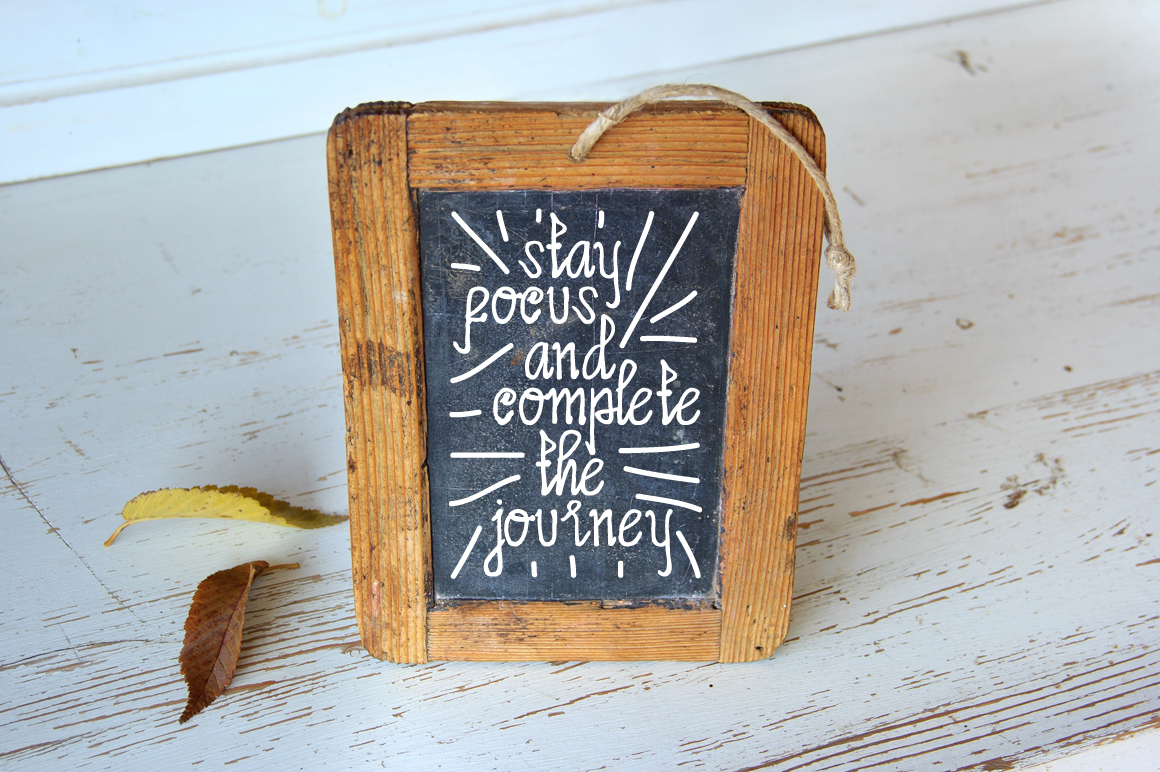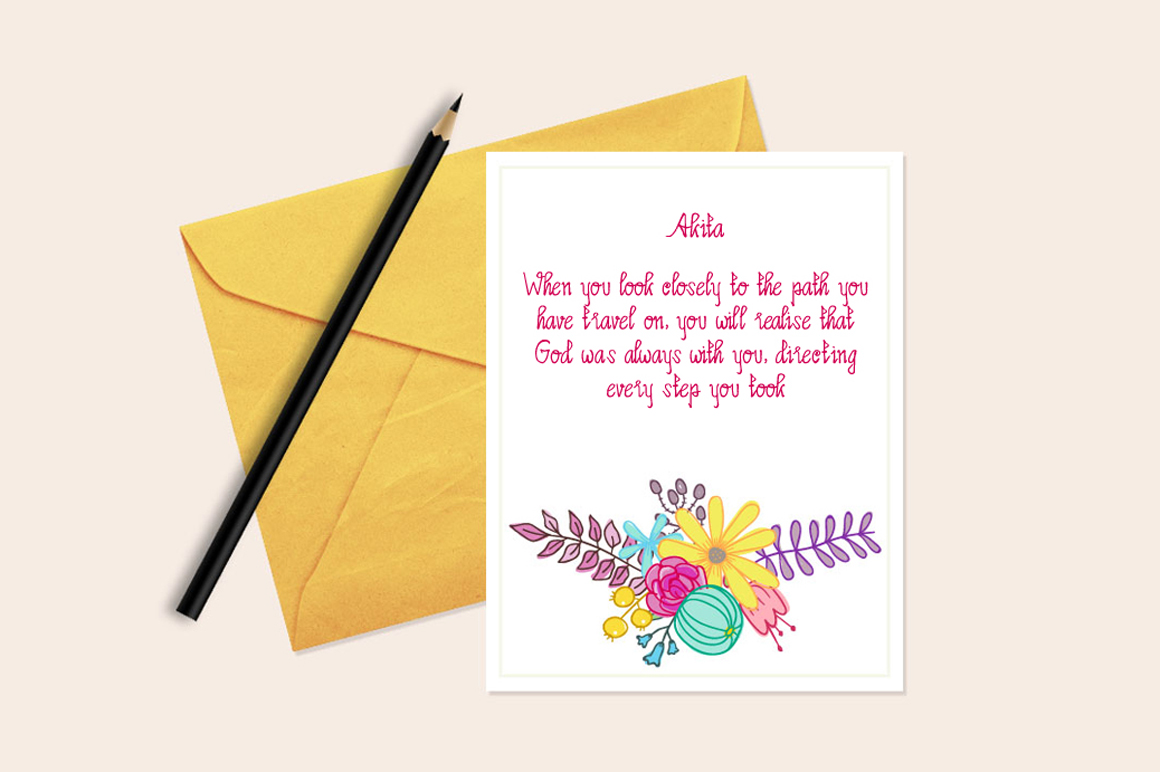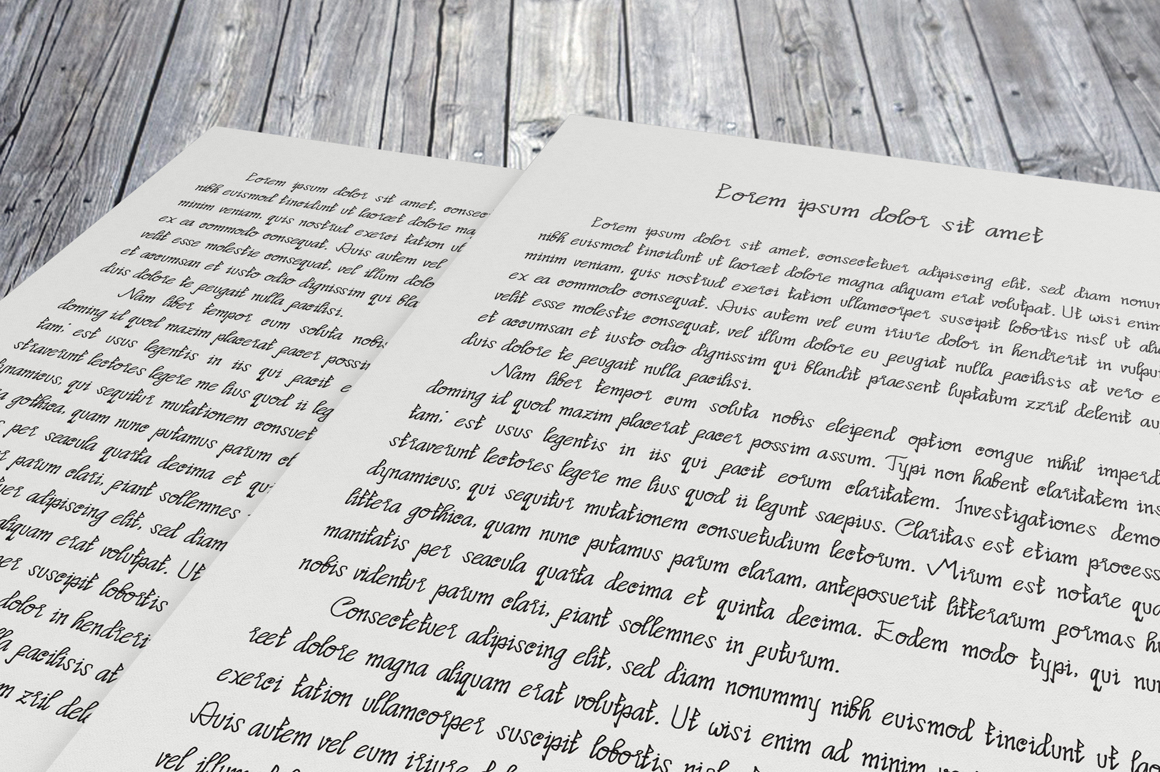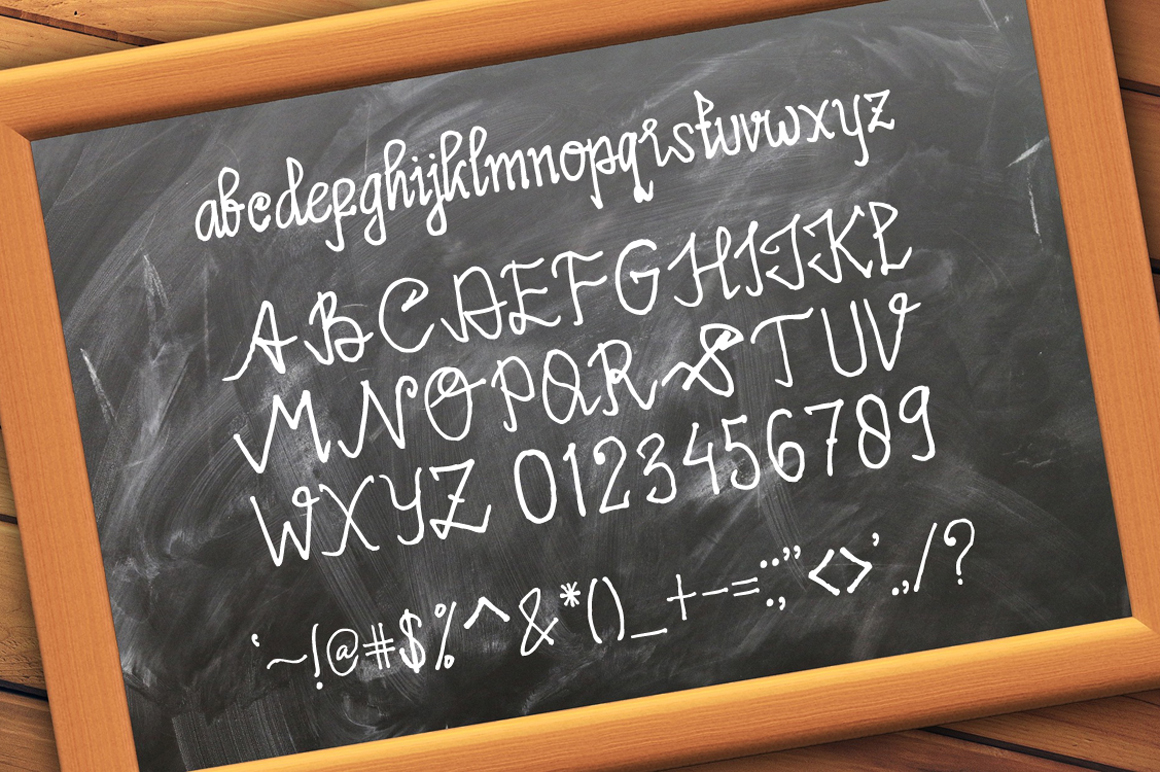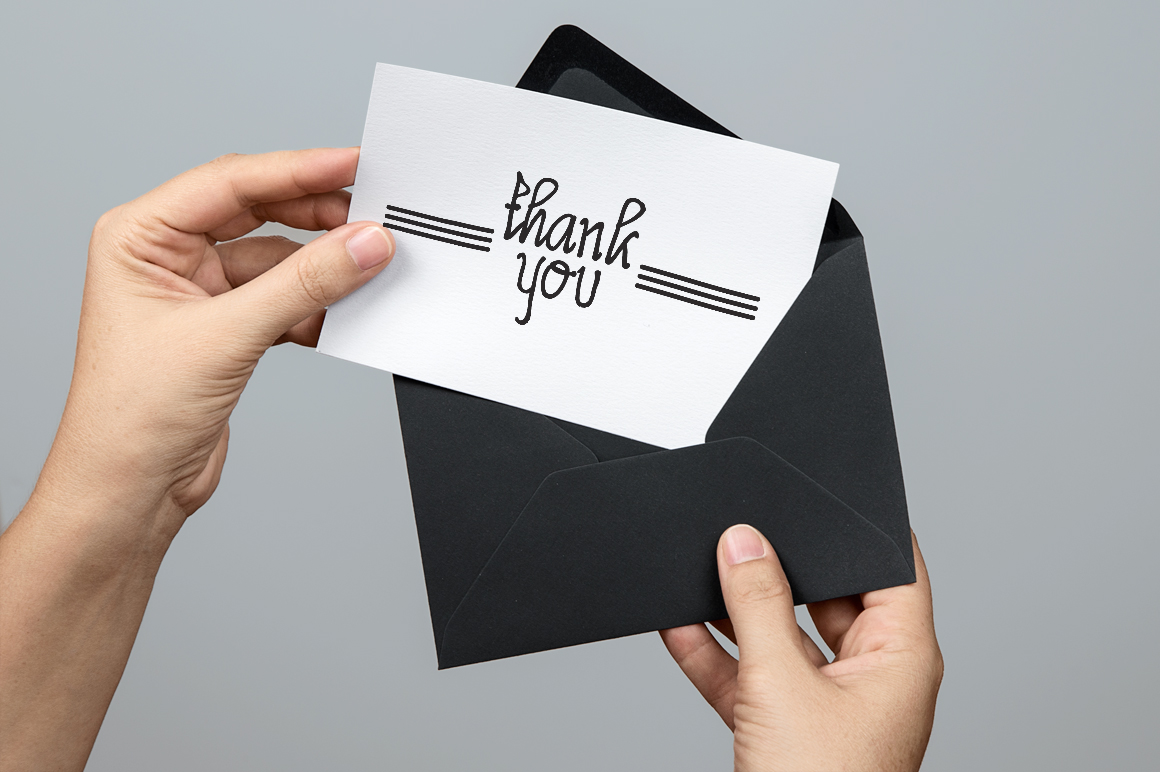
Introduction to Limpoke Font
Do you remember the moment when a new font changed the entire vibe of your creative project? For many designers, discovering the perfect font can be a game-changer. It’s that ‘aha’ moment when everything falls into place, and your design starts to shine. Recently, designers have been buzzing about the Limpoke Font, created by the talented team at Atjcloth Studio.
This clean and simple font has been making waves in the design community, and for good reason. With its transparent background and high-quality design, Limpoke Font is the perfect resource for any creative project. Whether you’re working on a branding project, designing a website, or creating digital art, this font is sure to elevate your design to the next level.
Key Features of Limpoke Font
- Unique, hand-drawn design ideal for creative projects requiring a personal touch.
- High-quality font with transparent background, allowing for seamless integration into various design resources.
- Includes a range of characters, including uppercase and lowercase letters, numbers, and special symbols.
- Perfect for designers and artists seeking a distinctive design resource for their next project.
- Available in a single size, making it easy to use across various design applications.
- Resolution: Optimized for use at 300 DPI, ensuring crisp and clear text in both digital and print designs.
Honest Review: Limpoke Font
I recently came across the Limpoke Font, and I must say it’s an interesting addition to any design project. As a designer, I appreciate fonts that can add a unique touch to a creative project.
What works well with the Limpoke Font is its versatility. It’s a high-quality font that can be used for various purposes, from headings to body text. Its modern design makes it perfect for digital projects, and its free download option makes it an excellent resource for designers on a budget.
- ✨ High-quality design that’s perfect for digital projects
- ✨ Transparent background makes it easy to use with any design element
However, there are a few limitations to the Limpoke Font. One major issue is that it may not be suitable for projects that require a more traditional or classic font style. Additionally, the font may not be compatible with older versions of design software.
Overall, I think the Limpoke Font is a great addition to any design resource collection. While it may have some limitations, its unique design and high-quality features make it a great option for creative projects.
The Limpoke Font is perfect for creative projects that require a unique and high-quality design resource. It’s ideal for use on transparent backgrounds, making it a great choice for logos, social media graphics, and other design elements.
Alternatives to Limpoke Font
Yes, Limpoke Font supports transparent backgrounds, making it ideal for creative projects that require a seamless blend with other design elements. Simply set the background to transparent, and the font will display as intended.
Is Limpoke Font suitable for high-quality design projects?
Yes, Limpoke Font is designed to be a high-quality design resource. Its clean lines, precise typography, and versatile style make it perfect for a wide range of design projects, from logos and branding to digital and print materials.